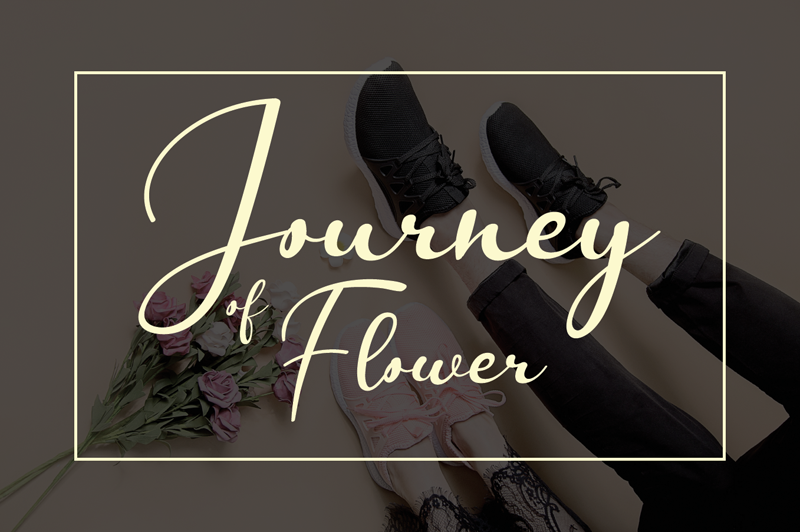
Preview and download Journey Of Flower Font. Created by Erik Luluk in Script Handwritten styles with Free for personal use license.
Font name: | Journey Of Flower |
Journey of Flower is a stylish and incredibly elegant script font. It looks stunning on wedding invitations, thank you cards, quotes, greeting cards, logos, business cards and every other design which needs a handwritten touch. Attention : Journey of Flower script font is prohibited to use this font for commercial purposes or for profit without the permission of the author/admin, without being known to use this font without permission, will be subject to sanctions 5x the specified price. This font is used only for demos (Demo license) If you want to use this font for commercial use please contact email: erikluluk0@gmail.com or click the link below: https://www.creativefabrica.com/product/journey-of-flower/ref/745146/ If you want to see more other fonts, please click:https://www.creativefabrica.com/designer/erik-studio/ref/745146/ Any donations are very appreciated. Paypal account for donation: https://paypal.me/eriksupriyant thanks. |